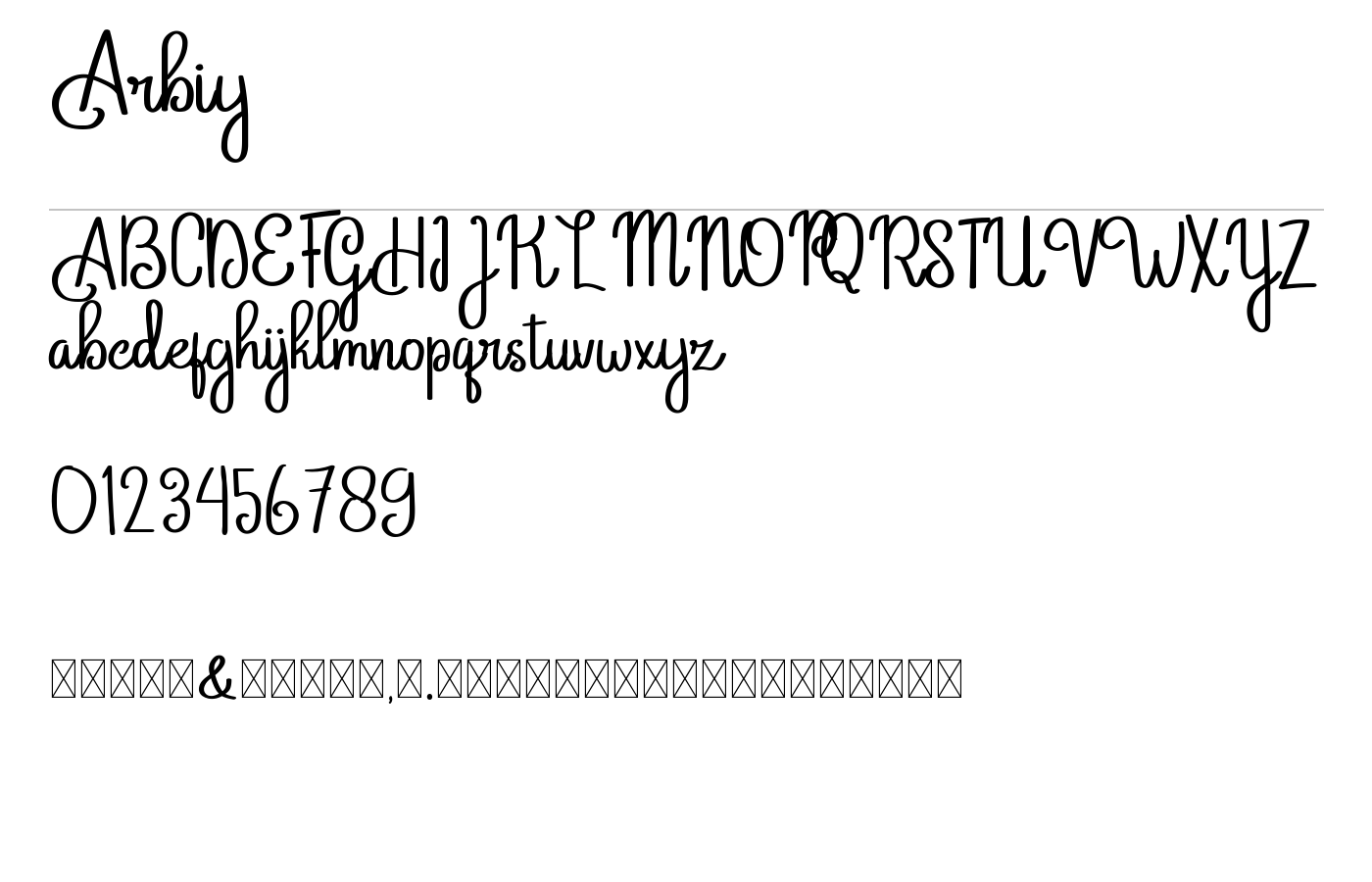
Arbiy is a playful and elegant handwritten script font featuring tall, narrow letterforms with smooth, flowing strokes and delicate loops. Its thin, consistent weight and slightly whimsical style make it perfect for creative projects, invitations, and branding that seek a friendly yet refined touch. This font works best in headlines, logos, or decorative text where a personal and charming feel is desired.
Arbiy Font
About Arbiy Font